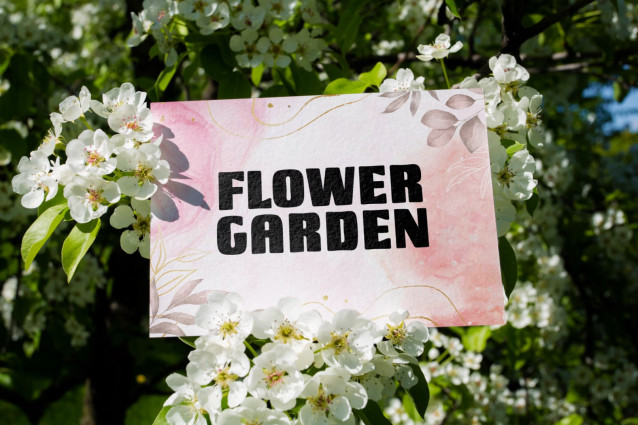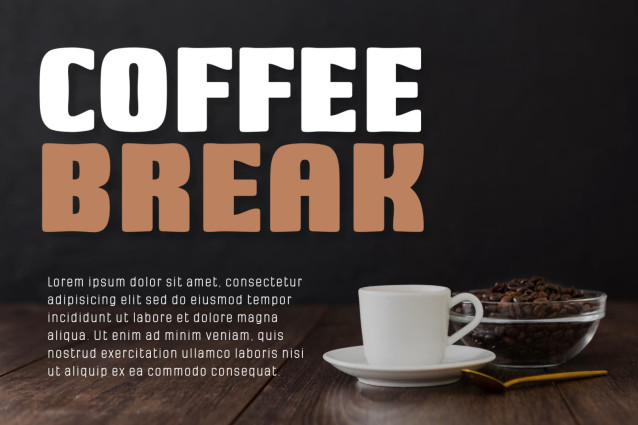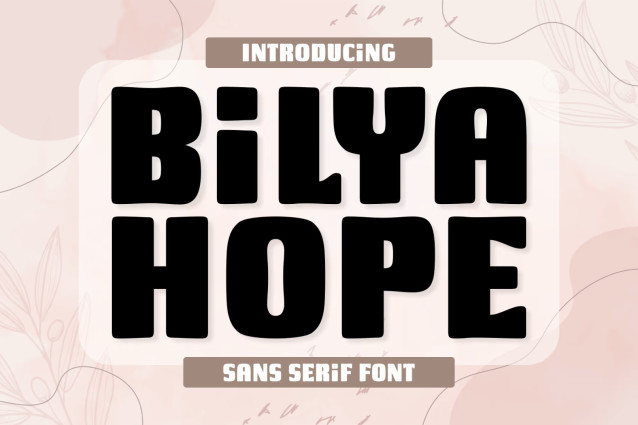
Bilya Hope Font is a modern, stylish and assertive sans serif font. Thanks to its friendly personality, this font is perfect for a wide spectrum of applications, ranging from children’s themed designs to posters, headlines, apparel, and more.